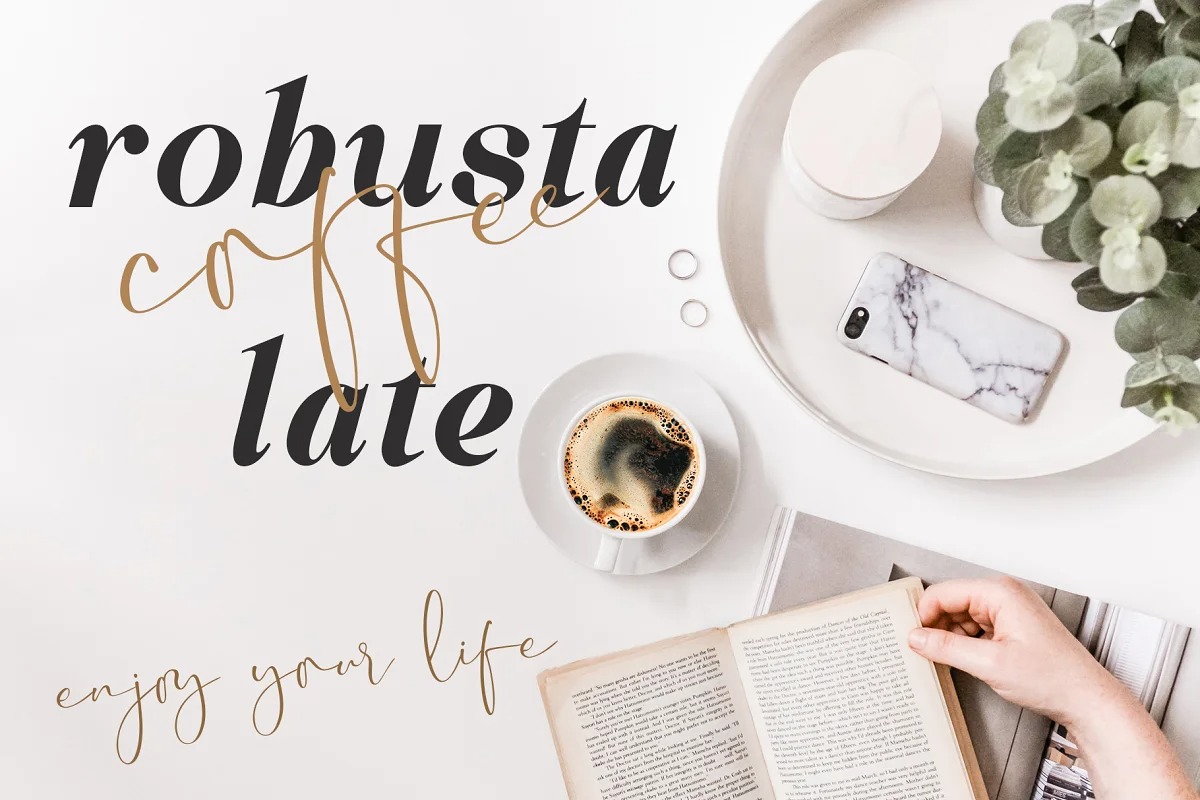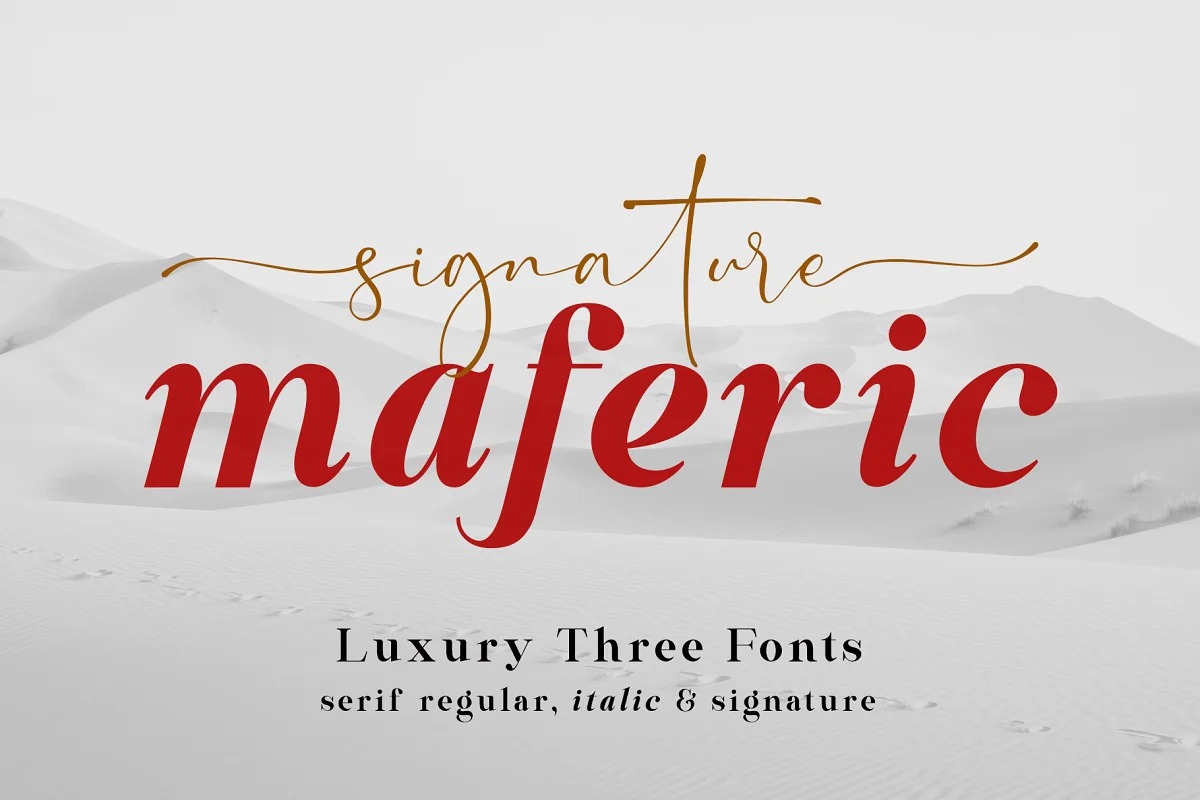
Maferic Signature Font Duo
Maferic Signature Font
This is a modern typeface duo that embodies elegance and charm in every character. Made from font designer named Sealoung. It’s a combination font consisting of luxury three fonts. Which has uniqueness in each letter and helps you to make your design work look more special. This font is perfect for your designs such as logos, branding, fashion, business cards, social media, and of course many more.